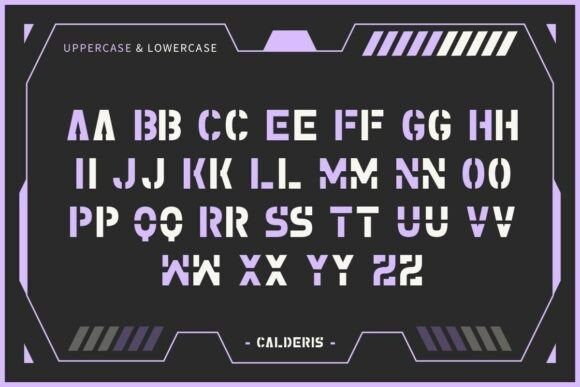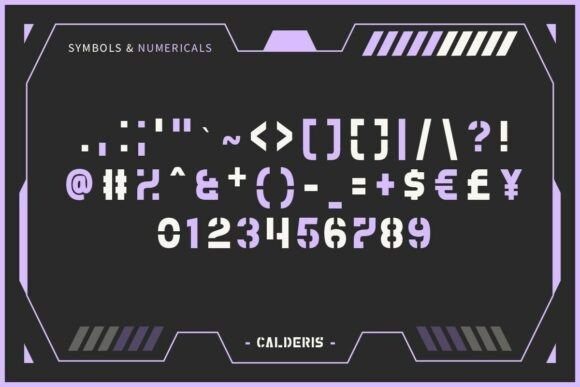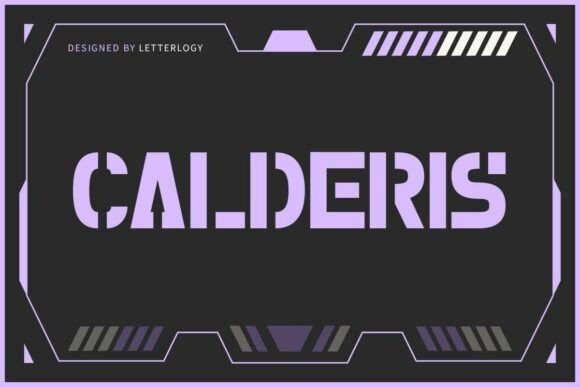
Calderis Font
Calderis Font is a cutting-edge display typeface designed for tech-forward creatives, gaming titles, sci-fi branding, and digital media. Its bold stencil design and geometric cuts give it a cybernetic edge that feels both modern and militaristic. With a strong industrial feel and high-impact style, Calderis is perfect for posters, UI design, esports logos, movie titles, and more.
This font includes uppercase and lowercase styles (with a uniform, all-caps look), making it highly adaptable for branding or standout display uses. Whether you’re designing for a dystopian future or a high-tech present, Calderis delivers maximum visual impact.